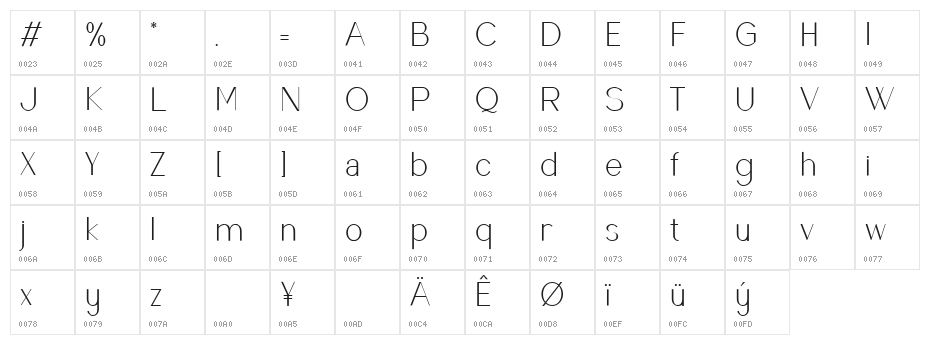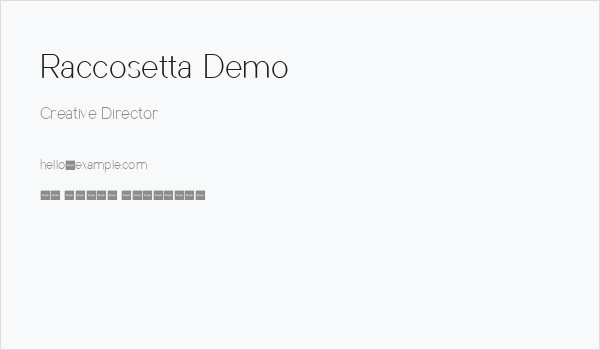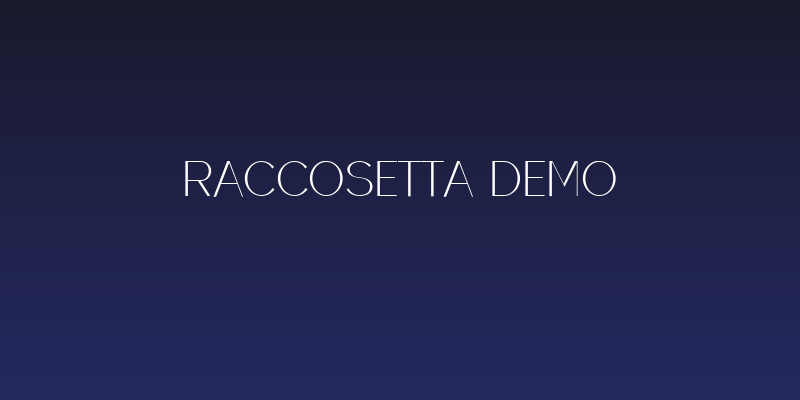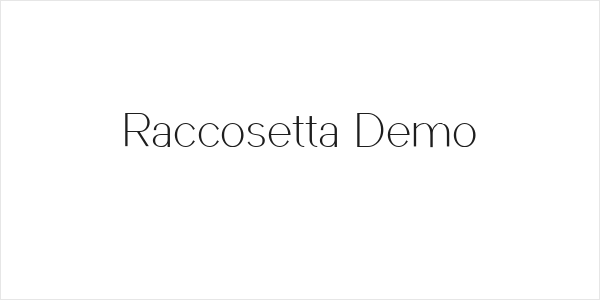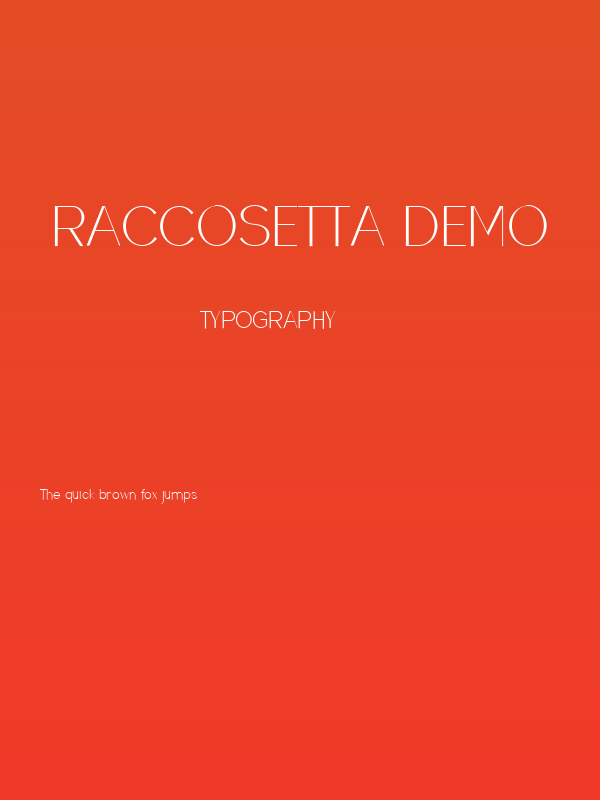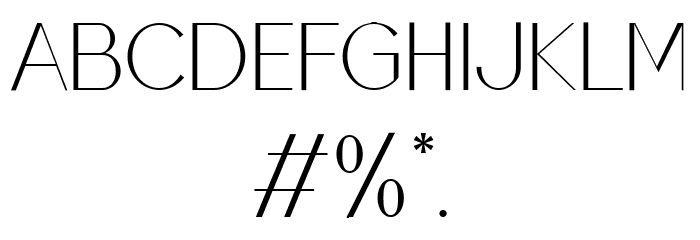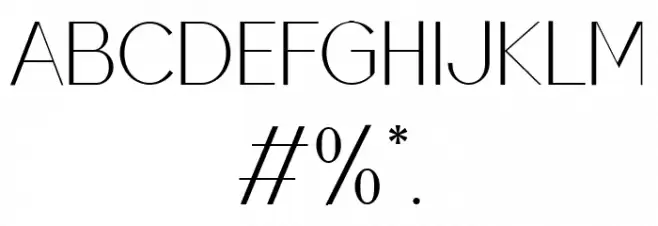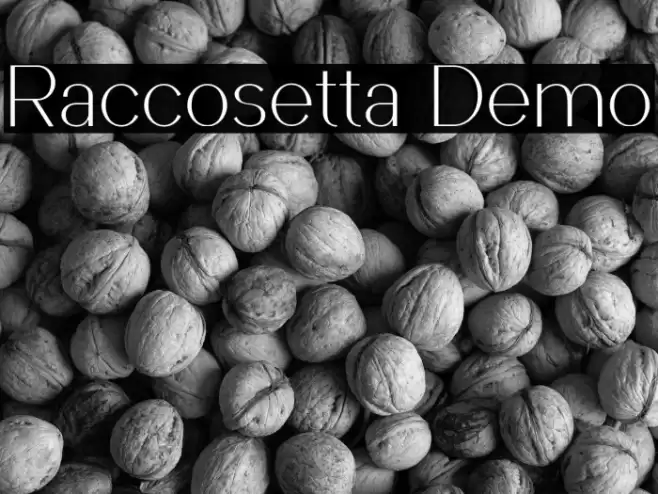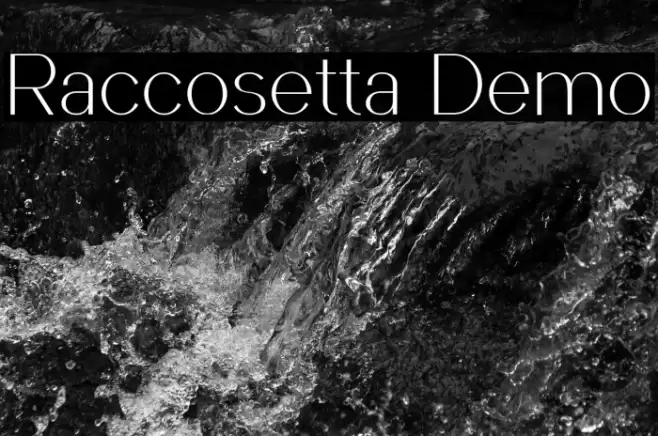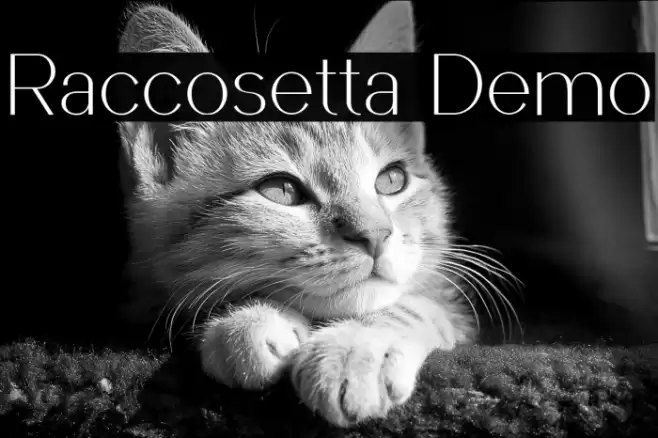
Raccosetta Demo Font
Raccosetta Demo Description
This font features a sleek and modern design with clean, straight lines and a minimalist aesthetic. The uppercase and lowercase letters are well-balanced, with a slight contrast in stroke thickness that adds a touch of elegance without compromising readability. The characters are slightly condensed, giving a sophisticated and contemporary look. The special characters maintain the same clean lines, ensuring consistency across all glyphs. This font is versatile, suitable for both digital and print media, and can be used in various design contexts.
| Width | Condensed |
| Use Case | Headlines, Body text, Logos |
| Proposed Projects | Ideal for branding, editorial design, websites, and advertising materials. |